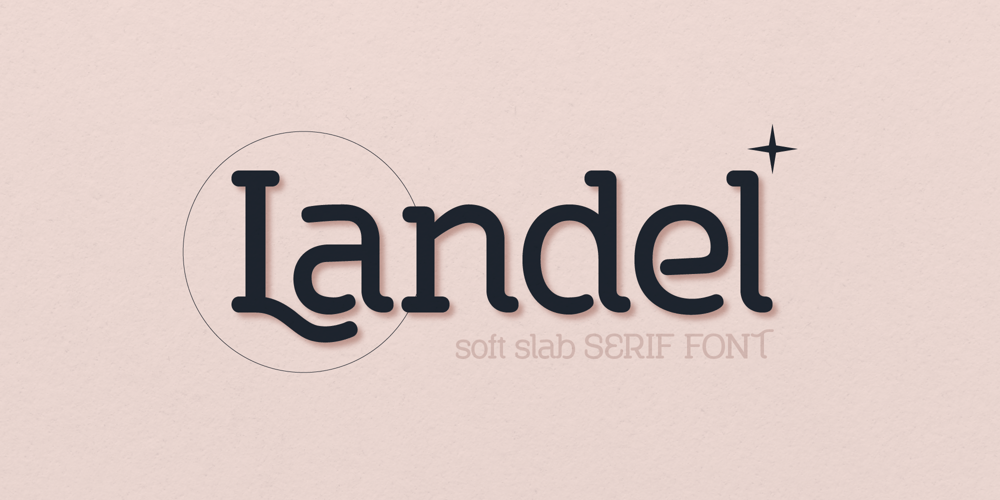
Landel Font Family was designed by Tatiana Yunina and published by Mira. Landel contains 1 styles and family package options. The font Landel is a soft slab serif font with noticeable serifs that gives text a distinctive character. Its gentle features provide text with a unique appearance, reminiscent of typewriter fonts but with a softer and more modern touch. This font is perfect for use in various design projects such as logos, packaging, headlines, and body text where a combination of uniqueness and aesthetics is required. Embodying traditional elements with a modern update, Landel becomes a reliable tool for creating attractive and original designs.